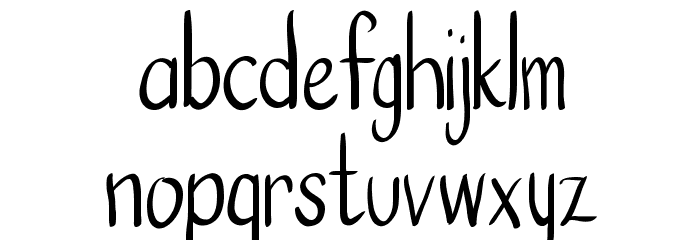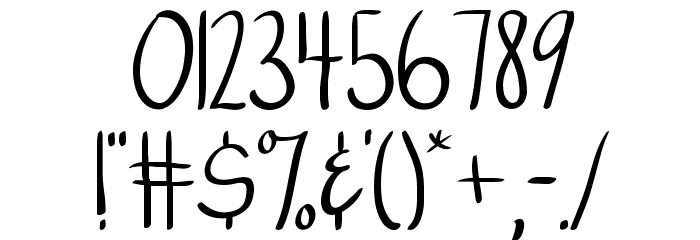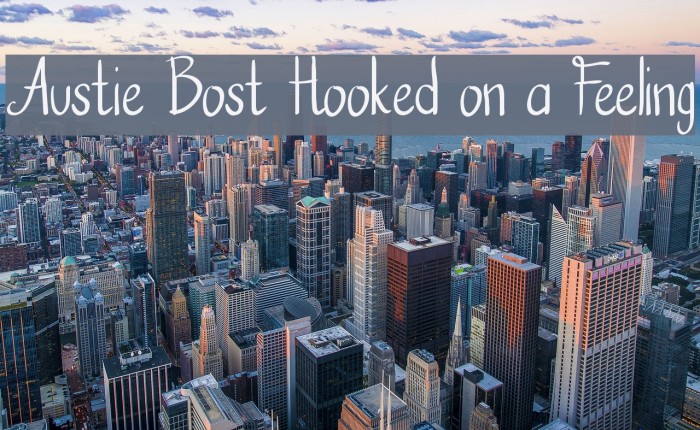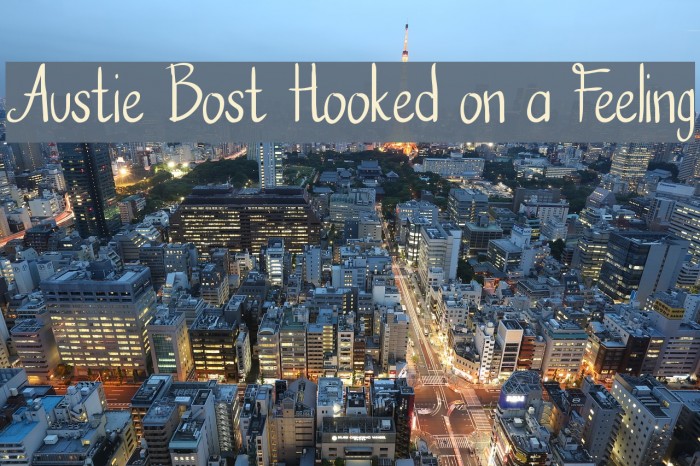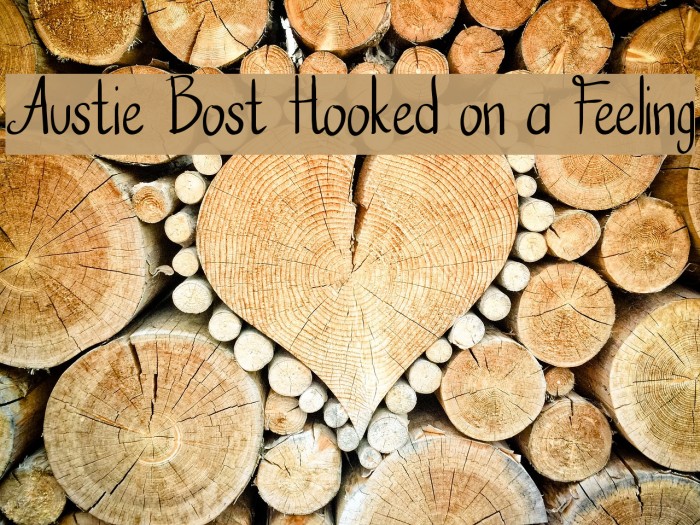
Austie Bost Hooked on a Feeling Font
This font exudes a playful and whimsical charm, characterized by its handwritten style that mimics the fluidity of casual script. The letters are slightly slanted, adding a dynamic and lively feel to the text. Each character is crafted with a unique flair, featuring loops and curves that enhance its decorative appeal. The uppercase letters are bold and prominent, while the lowercase letters maintain a consistent flow, making it suitable for creative and informal projects. The numbers and special characters are designed to match the overall aesthetic, ensuring a cohesive look across all text elements.
A playful, handwritten font with a whimsical and decorative style.
- Proposed Projects: Ideal for greeting cards, children's books, playful branding, and creative invitations.
- Use Case: Logos, Headlines, Creative projects